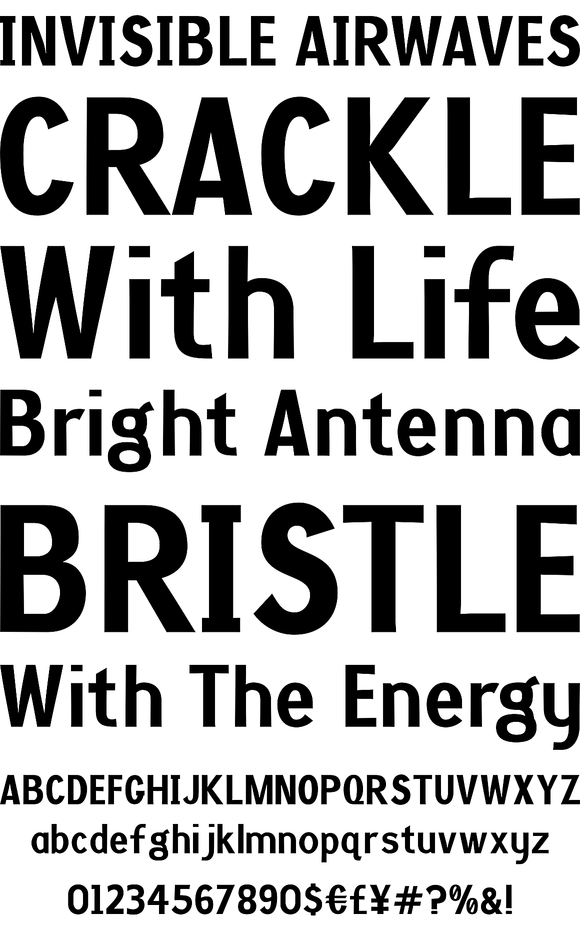
Crossell
Foundry: Emboss Fonts
Crossell is a display typeface inspired by linoleum cuts and old comic strips. It comes in three weights and can be purchased solo or as a family. Take it home and give it a spin today.